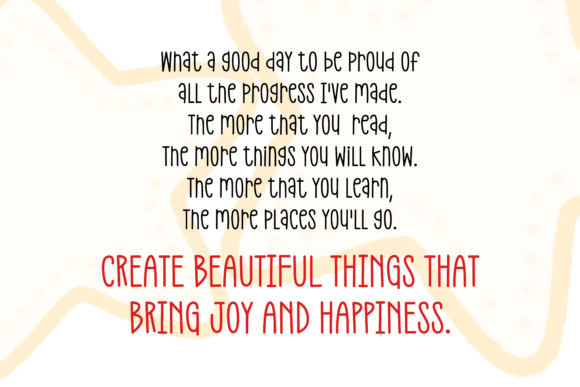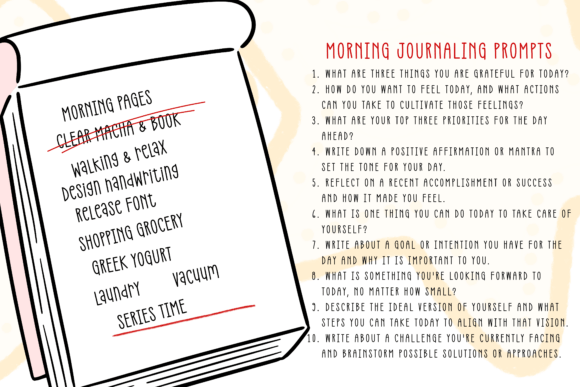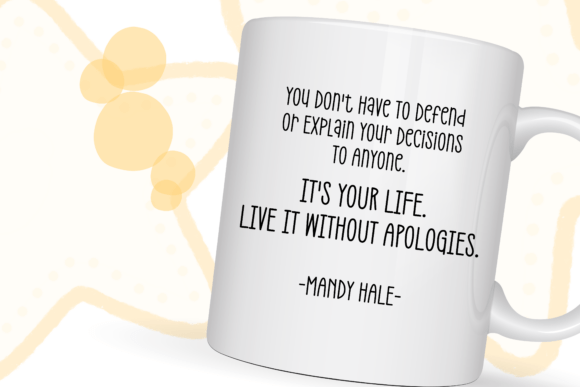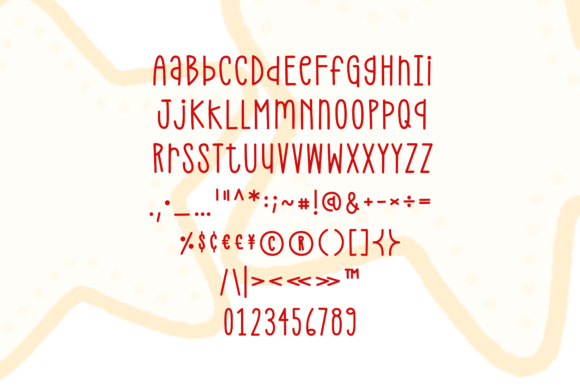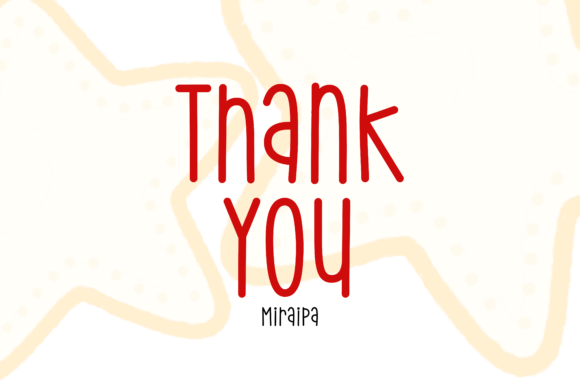
Introducing Guardian Font: A Strong, Friendly, and Legible Display Sans Serif
In the world of typography, fonts play a crucial role in conveying messages, evoking emotions, and creating lasting impressions. For designers and crafters, finding the perfect font that combines strength, friendliness, and legibility can be a daunting task. However, look no further than Guardian Font, a display sans serif font that embodies a clear, handcrafted aesthetic. In this article, we’ll explore the unique features of Guardian Font, its ideal applications, and why it’s an excellent addition to any design project.
The Unique Features of Guardian Font
Guardian Font boasts tall, rounded letterforms and a slightly irregular monoline weight, giving it a charming, approachable, and assertive presence. Its strong, yet friendly demeanor makes it an excellent choice for a wide range of design applications. The font’s clean and legible design ensures that it remains highly readable, even at larger font sizes, making it perfect for display purposes.
One of the standout features of Guardian Font is its handcrafted aesthetic. The font’s slightly irregular monoline weight gives it a human touch, reminiscent of hand-drawn lettering. This unique characteristic sets Guardian Font apart from more traditional sans serif fonts, adding a layer of warmth and personality to any design.
Ideal Applications for Guardian Font
Given its friendly, approachable, and assertive presence, Guardian Font is ideal for a variety of design projects. Some of the most suitable applications include:
- Children’s educational materials: Guardian Font’s clean and legible design makes it perfect for educational materials, such as textbooks, workbooks, and activity sheets.
- School posters: The font’s strong and friendly demeanor makes it an excellent choice for school posters, announcements, and displays.
- Playful branding: Guardian Font’s unique handcrafted aesthetic and charming presence make it an excellent choice for playful branding, packaging, and product design.
- Casual headlines: The font’s high legibility and clean design make it perfect for casual headlines, titles, and headings.
Why Choose Guardian Font?
There are several reasons why Guardian Font stands out from other display sans serif fonts:
- Clean and legible design: Guardian Font’s clean and legible design ensures that it remains highly readable, even at larger font sizes.
- Handcrafted aesthetic: The font’s slightly irregular monoline weight gives it a human touch, reminiscent of hand-drawn lettering.
- Strong and friendly demeanor: Guardian Font’s unique combination of strength and friendliness makes it an excellent choice for a wide range of design applications.
- Versatility: The font’s clean and legible design makes it perfect for a variety of design projects, from children’s educational materials to playful branding.
Tips for Using Guardian Font
To get the most out of Guardian Font, here are a few tips to keep in mind:
- Use it for display purposes: Guardian Font is designed for display purposes, so use it for headlines, titles, and headings.
- Experiment with font sizes: The font’s clean and legible design ensures that it remains highly readable, even at larger font sizes.
- Pair it with complementary fonts: Guardian Font pairs well with a variety of fonts, so experiment with different combinations to find the perfect match for your design.
In conclusion, Guardian Font is an excellent addition to any design project that requires a strong, friendly, and legible display sans serif font. Its unique handcrafted aesthetic, charming presence, and high legibility make it perfect for a wide range of applications, from children’s educational materials to playful branding. With its versatility, clean design, and strong demeanor, Guardian Font is sure to become a go-to font for designers and crafters alike.